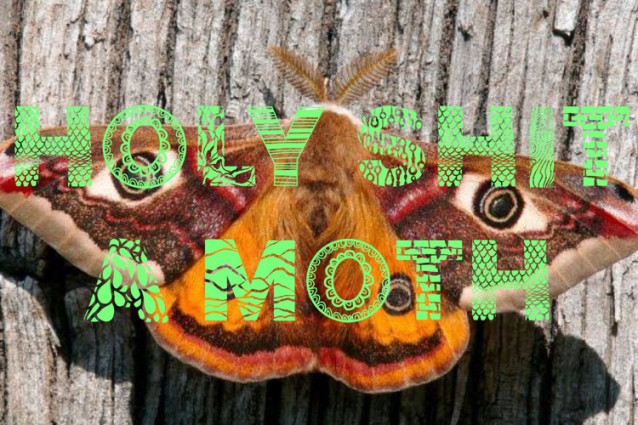
Texturama Decorative Font is a cool and unique decorative display font. Add it confidently to your projects and you will be amazed by the outcome generated!
Texturama Decorative Font